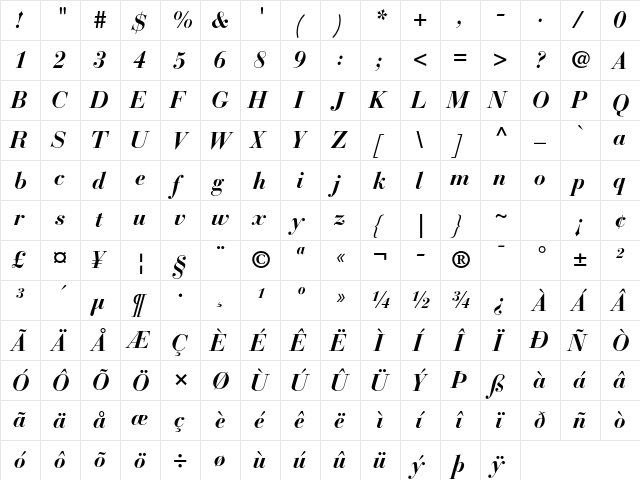
Bauer Bodoni Std 1 Bold Italic Font Preview
| Designer | Heinrich Jost, Louis Hڬl |
Design Context for Bauer Bodoni Std 1 Typeface
Bauer Bodoni Std 1 takes a measured approach to typography — its balanced proportions and neutral character make it a reliable workhorse for both digital and print work. Its italic angle brings a sense of urgency and motion to the letterforms. Its bold stroke weight gives it real presence on the page.
Pro Tip: Try Bauer Bodoni Std 1 for annotation and caption copy alongside an upright companion — the contrast in angle creates a dynamic but ordered typographic system.